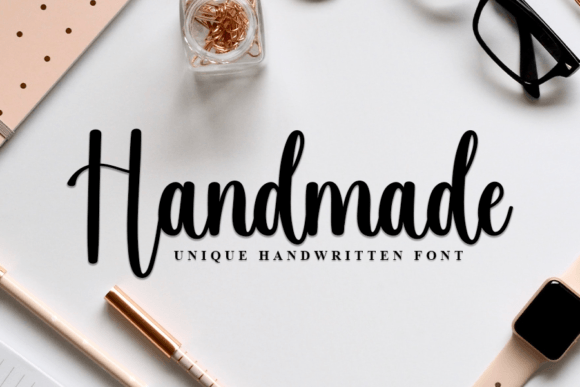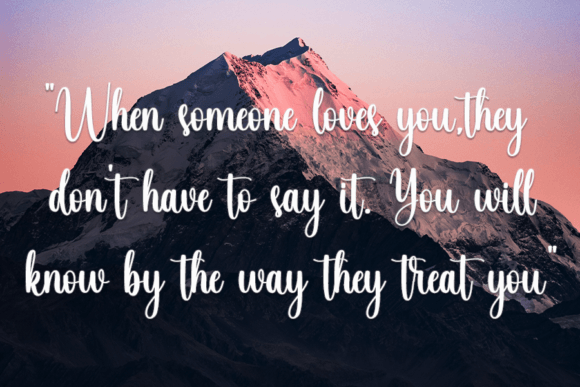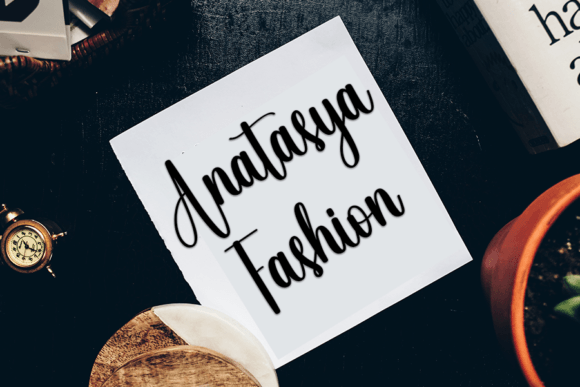
Bluey Font
Bluey is a cool and modern handwritten font. Whether you’re using it for crafts, digital design, presentations, or creating greeting cards, this font has the potential to be your go-to font, whatever the occasion.